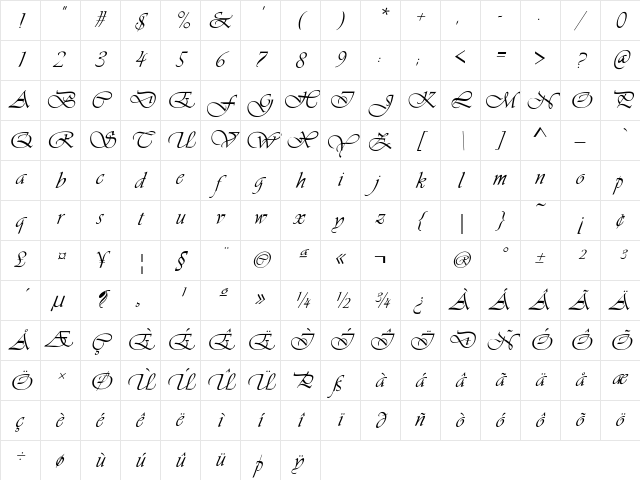
Vivaldi Regular Free Font
Vivaldi Regular
Vivaldi Family
Design Context for Vivaldi
Vivaldi is a composed and adaptable typeface that performs quietly and consistently across a wide range of design contexts.